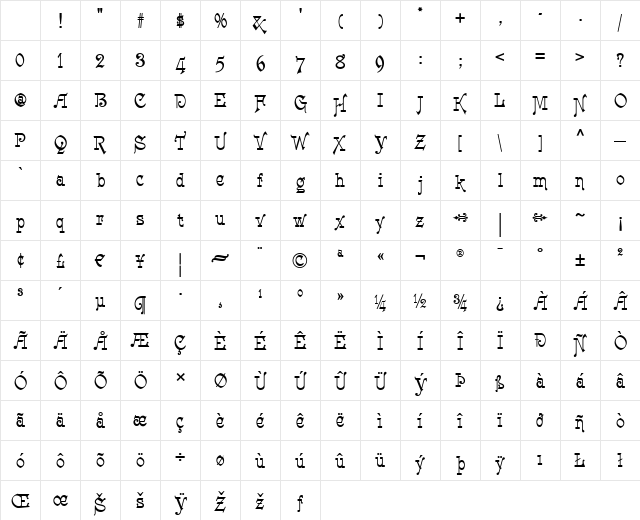
Complete Groove Thang NF Regular glyph index. Displaying only characters natively supported by Groove Thang NF Regular font.
Groove Thang NF is a composed and adaptable typeface that performs quietly and consistently across a wide range of design contexts.